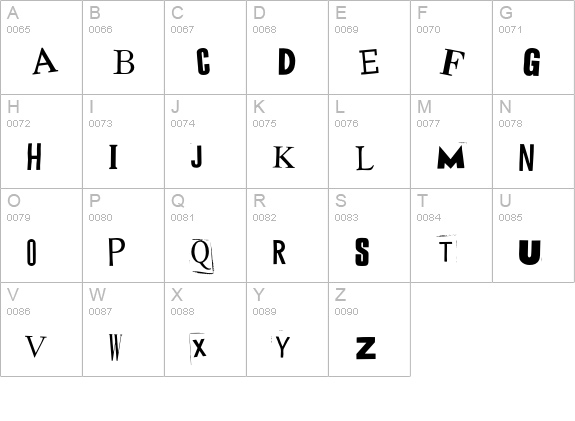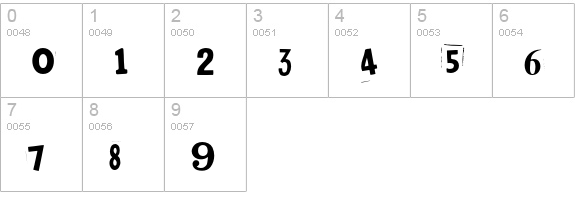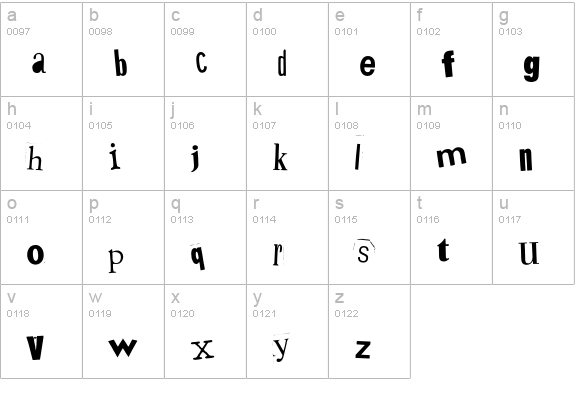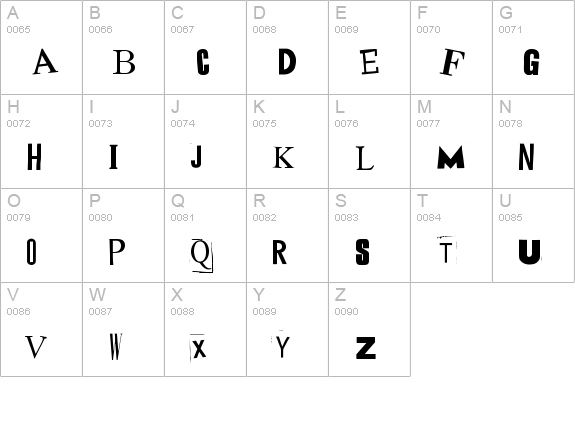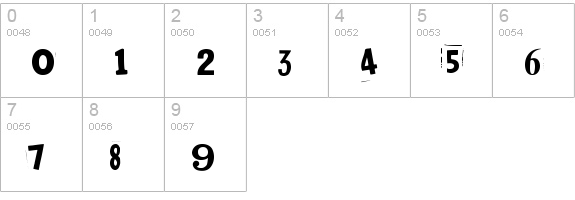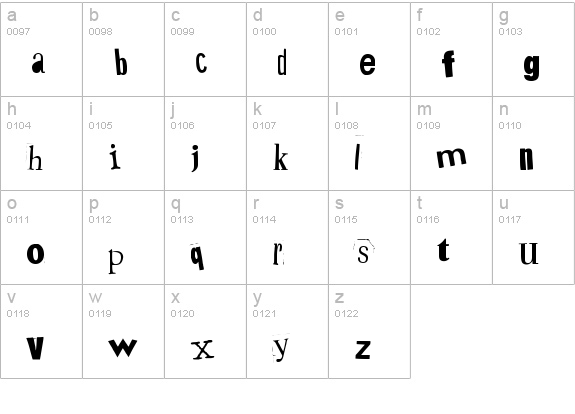
MysteryEF-White Font Details
MysteryEF-White font is a captivating and enigmatic typeface that exudes a sense of intrigue and mystery. Its elegant and sophisticated design makes it perfect for adding a touch of mystique to any project. With its sleek lines and intricate details, MysteryEF-White font is sure to capture the attention of viewers and leave a lasting impression. The best part? MysteryEF-White font is available for free download at FontsMarket.com. This means that you can easily incorporate this stunning font into your designs without any cost. Whether you're working on a creative project, branding materials, or any other design endeavor, MysteryEF-White font is a versatile choice that will elevate your work to the next level. Don't miss out on the opportunity to enhance your designs with the unique charm of MysteryEF-White font. Download it for free today at FontsMarket.com and let your creativity shine!